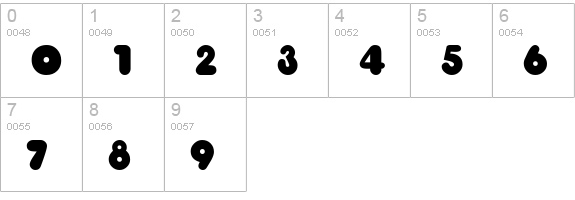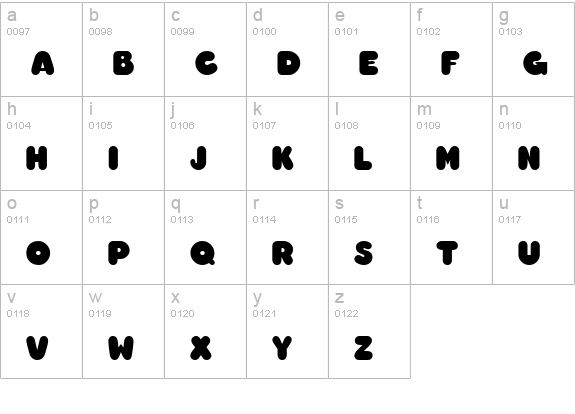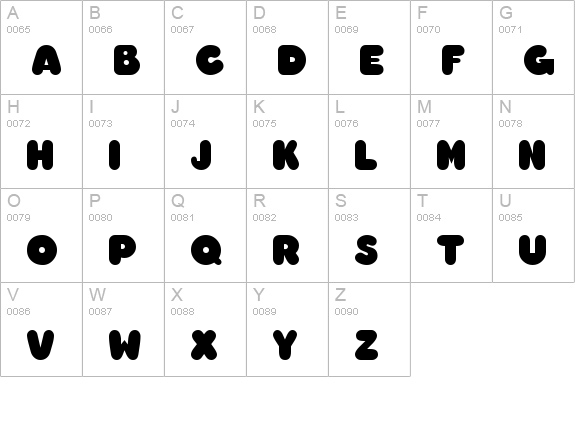
Chubby Font Details
Chubby font is a playful and whimsical typeface that exudes charm and personality. Its rounded edges and bold strokes give it a friendly and inviting appearance, perfect for adding a touch of fun to your designs. Whether you're creating posters, invitations, or social media graphics, Chubby font will make your text pop and stand out. The best part? Chubby font is available for free download at FontsMarket.com. That's right, you can easily access this delightful font and use it in your projects without any cost. So why wait? Add a touch of cuteness and character to your designs with Chubby font today!